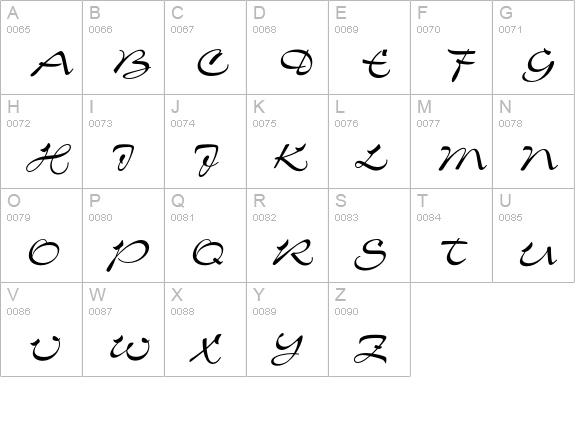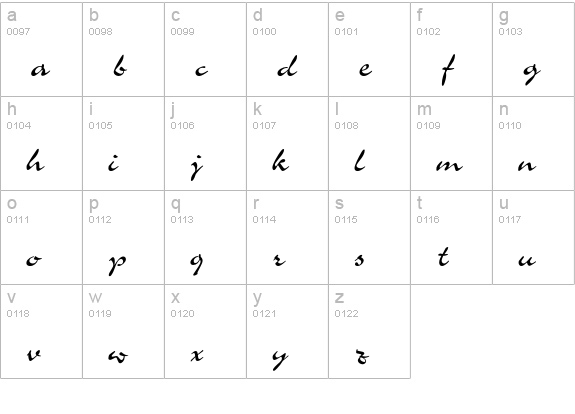
CharmeICG Font Details
CharmeICG font is a delightful and versatile typeface that exudes elegance and charm. With its intricate design and flowing curves, CharmeICG is perfect for adding a touch of sophistication to any project. This font is free to download at FontsMarket.com, making it easily accessible for all designers and enthusiasts looking to elevate their designs. Whether used for invitations, logos, or branding, CharmeICG is sure to captivate and impress with its unique style and timeless appeal. Add a touch of class to your next project with CharmeICG font.